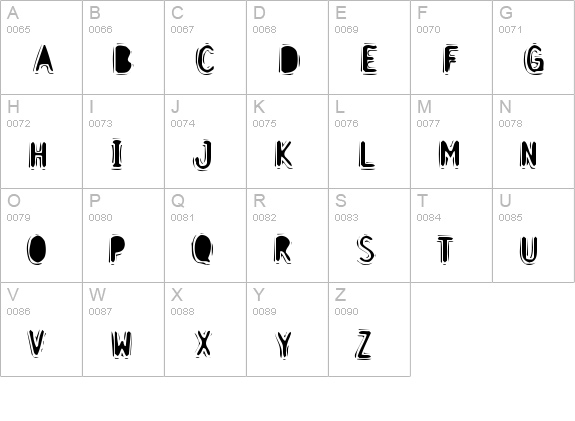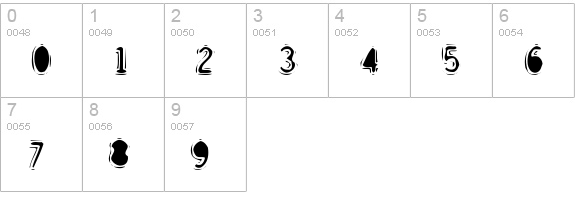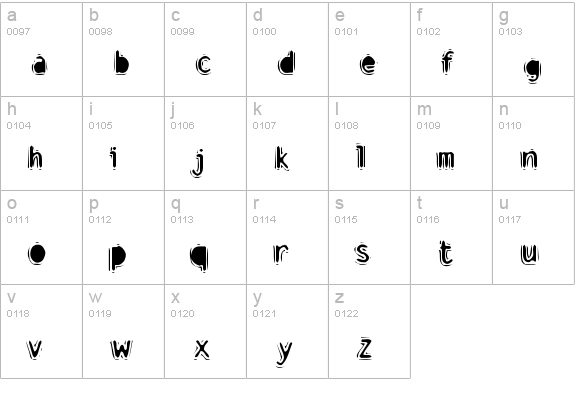
Discount Inferno Bold is a strong, high-contrast variant in the Discount typeface family \xE2\x80\x94 well suited to headlines, attention-grabbing titles, and strong calls-to-action.
Introducing Discount Inferno Bold font - a striking and eye-catching typeface that demands attention with its bold and modern design. This font is perfect for creating impactful headlines, logos, posters, and more. The Discount Inferno Bold font exudes a sense of power and confidence, making it ideal for projects that require a strong visual presence. Best of all, the Discount Inferno Bold font is available for free download at FontsMarket.com. This means you can easily access this powerful font and use it in your projects without any cost. Don't miss out on this opportunity to enhance your designs with the Discount Inferno Bold font - download it for free today!